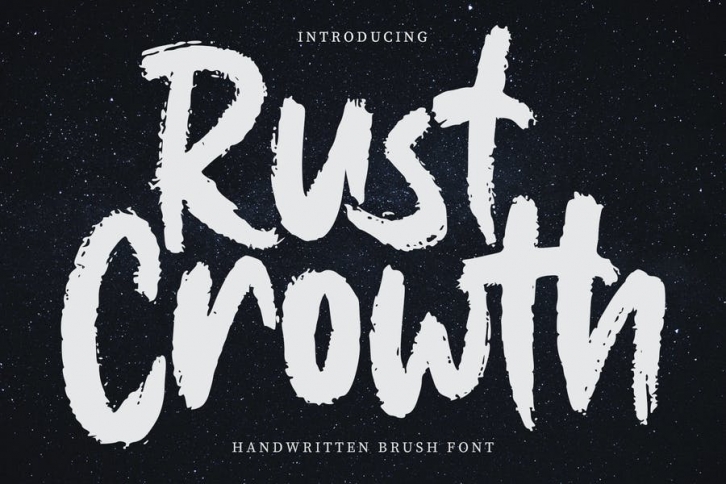
Rust Crowth is a handwritten brush font. With regular rough brush stroke, fun character with a bit of ligatures and alternates. To give you an extra creative work. Rust Crowth font support multilingual more than 100+ language. This font is good for logo design, Social media, Movie Titles, Books Titles, a short text even a long text letter and good for your secondary text font with sans or serif. Make a stunning work with Rust Crowth font.